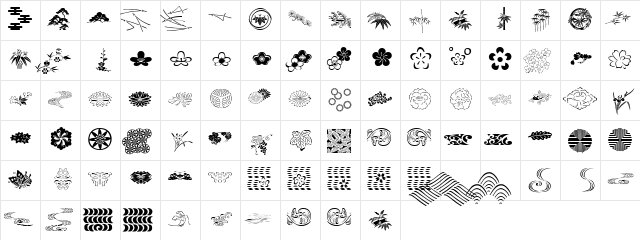
JapaneseGardenOrnamentsITC Medium Font Preview
JapaneseGardenOrnamentsITC Medium
Design Context for JapaneseGardenOrnamentsITC Typeface
JapaneseGardenOrnamentsITC is built around its visual character rather than neutral utility — its distinctive forms are designed to make an impression at display sizes.